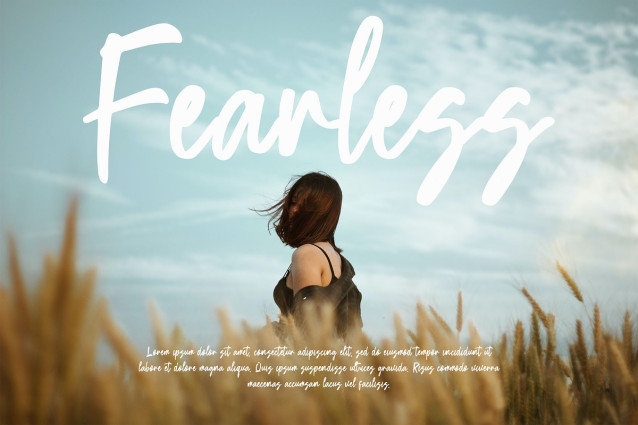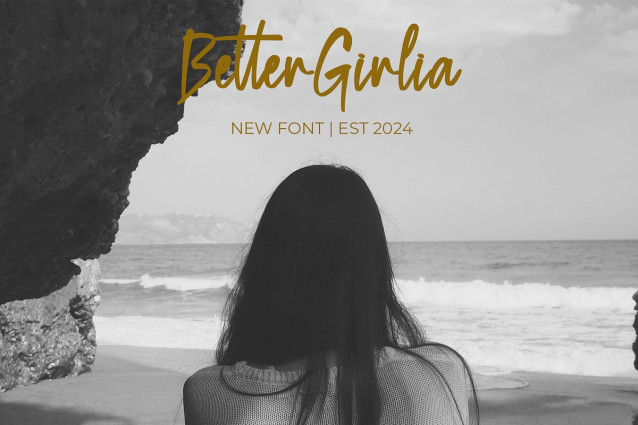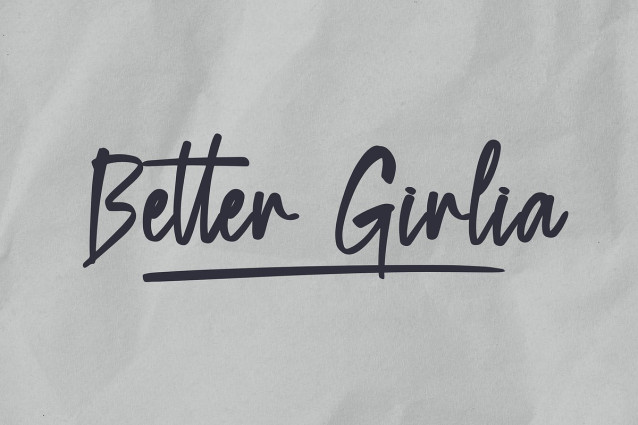
Better Girlia Font
Better Girlia Font is a beautiful handwriting font with a natural brush stroke style. Its unique and elegant character shapes add a personal and artistic touch to your designs, making it perfect for logos, product packaging, invitations, and more. With Better Girlia, your projects will stand out with a visually captivating and stylish look.